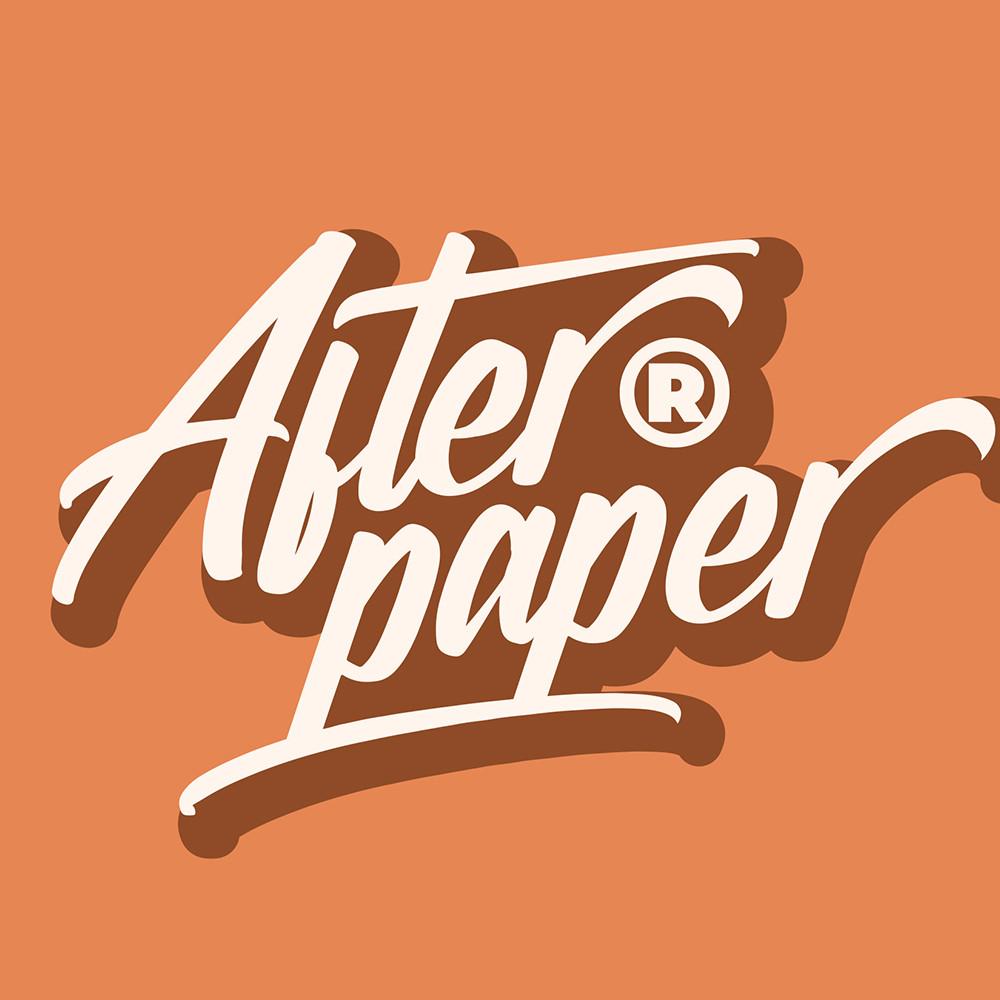
Harntman Font Description
Harntman is a beautiful script font, suitable for any projects such as logos, branding projects, homeware designs, product packaging, mugs, quotes, posters, shopping bags, t-shirts, book covers, name cards, invitation cards, greeting cards, labels, photography, watermark, special events, and all your other lovely projects that need a beautiful script taste.